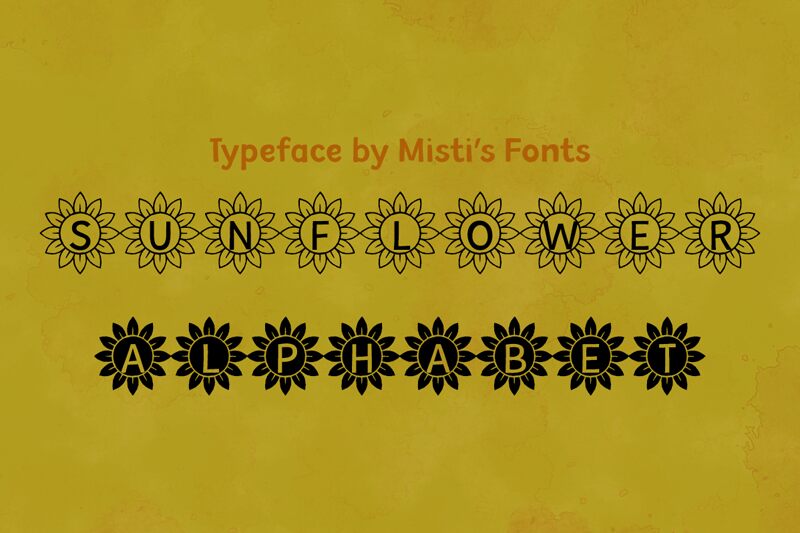
Sunflower Alphabet font family by Misti’s Fonts is a lovely font made of decorative letters with sunflowers blooming from them. The free decorative font family contains two completely unique font styles. The displayed flowers are a cheerful touch that adds a fun element to the letters. Designed with attention to detail, each letter was made to reflect the beauty and the playfulness of flowers.
Decorative fonts with thematic elements are a fun addition to any design project. They capture attention and make visuals memorable and interesting. Use Sunflower Alphabet in your designs, be it in a personal logo or a farewell card for a friend or family member. Magazines and advertisements will be hard to go unnoticed once they apply the font family. Other uses include book covers, social media posts, photography backgrounds, greeting cards, and more.
Unveiling the Sunflower Alphabet, an effervescent display font characterized by robust numerals and letters encased within vibrant sunflower silhouettes. With its unique design, it is available in Regular and Solid versions, providing a versatile canvas for creators. This free font has the power to bring a touch of joy to children's crafts and simultaneously enhance the aesthetic appeal of posters and other lively designs. Revel in the sunny charm of this font!